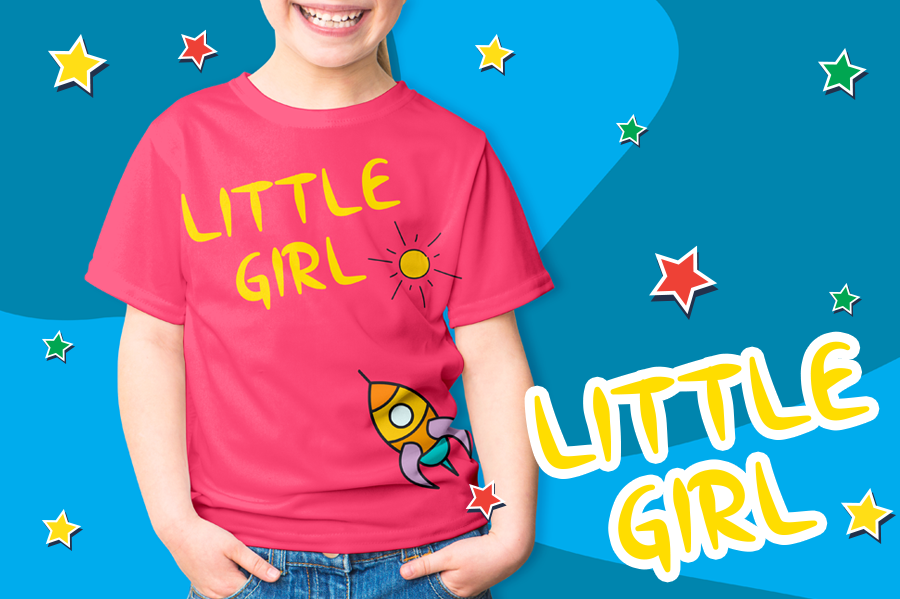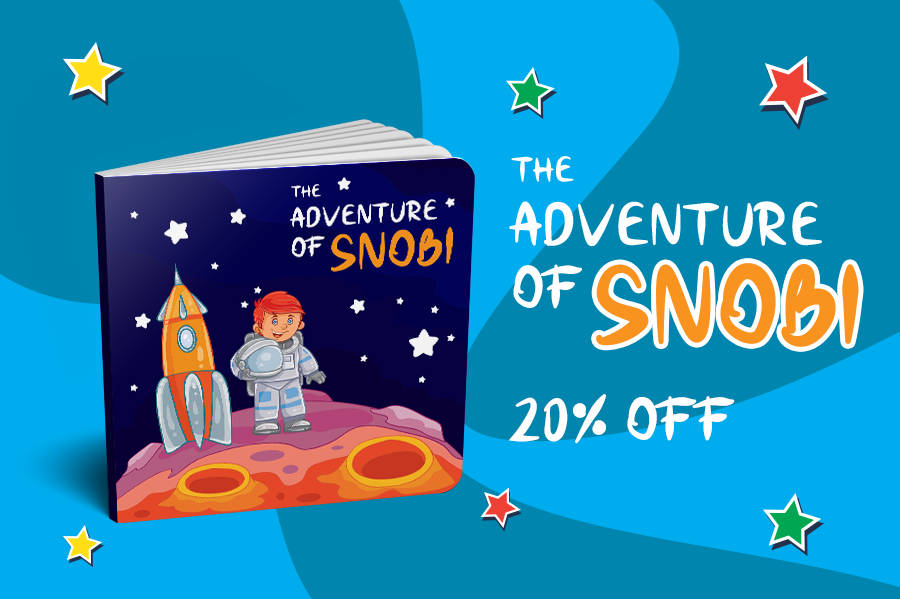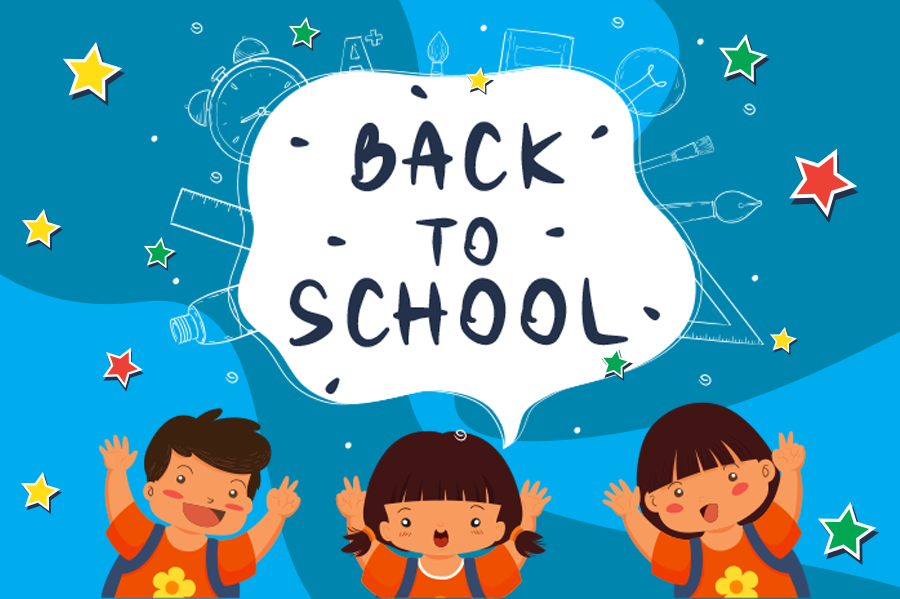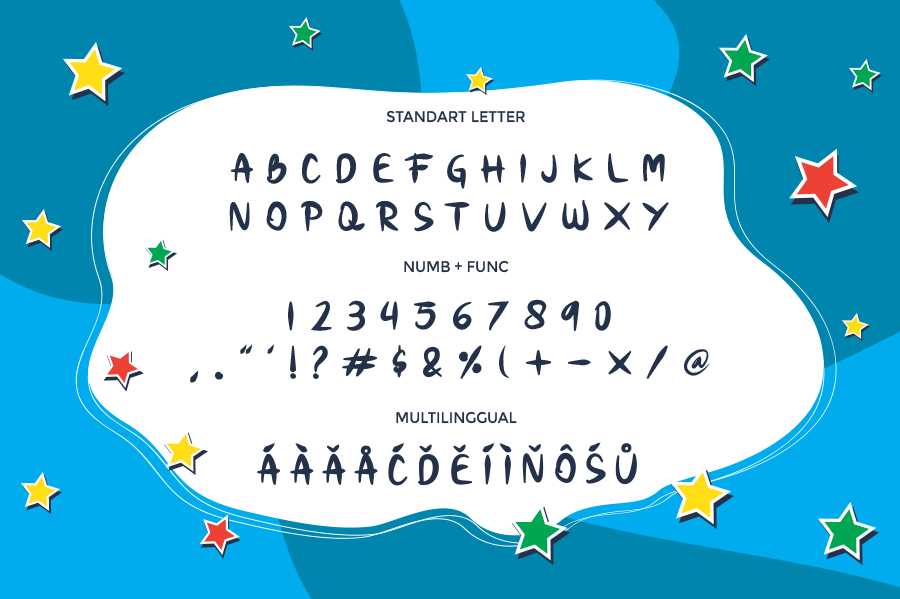
Snobi playful font
I am a hero fun display font. my name is SNOBI. I am child-friendly font. I would look perfect on creating designs targeted towards children. I am also suitable for logos, packaging designs, posters, books, etc.
Feature:
• Standard letter A-Z
• Number and Functional